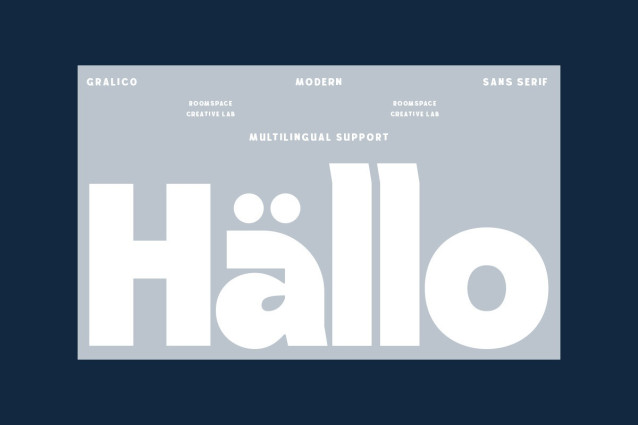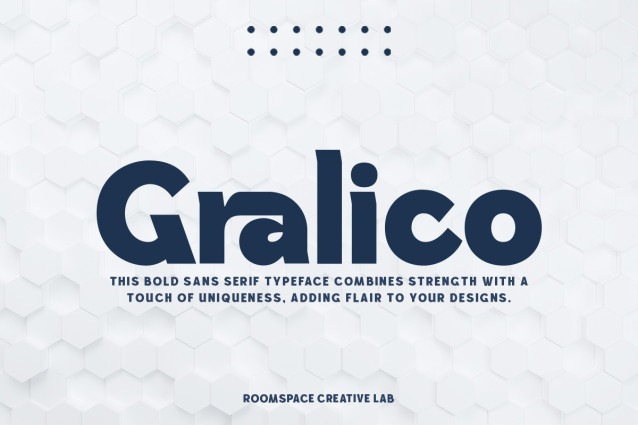
Gralico Font
Gralico Font: The embodiment of bold elegance and a touch of modern style, standing out as a symbol of creativity in the design world. The meticulously crafted characters and unique character sets turn each letter into a work of art, adding depth and personality to your project.
Whether you are designing a cutting-edge website, creating an eye-catching logo or developing impressive branding materials, Gralico offers versatility and style beyond compare. Its bold yet sophisticated look grabs attention, perfect for headlines, banners, advertisements and more.